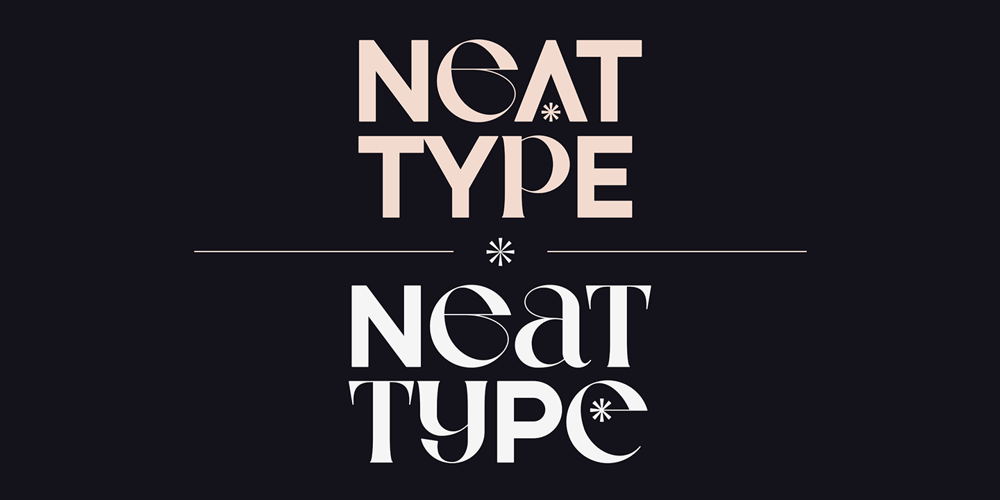
Neat Type Font Family was designed by Vladimir Fedotov, Plamen Petrov and published by VP Creative Shop. Neat Type contains 1 styles and family package options. Introducing Neat Type, a sophisticated and innovative font that seamlessly blends the elegance of serif with the modernity of sans serif. Designed with versatility in mind, this unique typeface features uppercase characters in sleek sans serif, while lowercase letters boast a refined serif style. Perfect for designers and creatives seeking a fresh, hybrid look, Neat Type includes a rich set of alternate and ligature glyphs, enhancing your design possibilities.